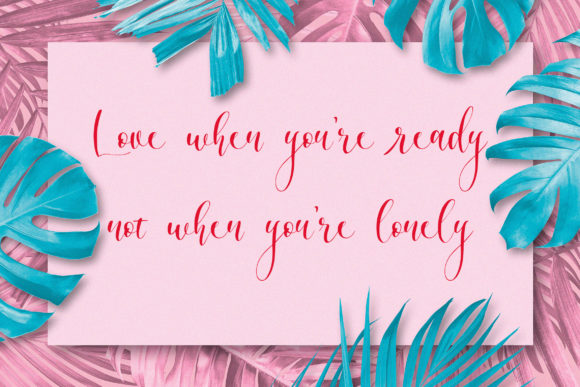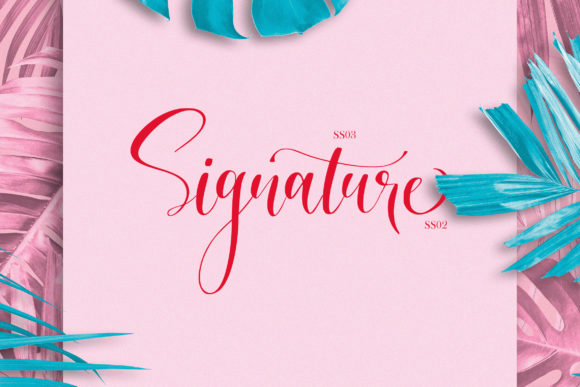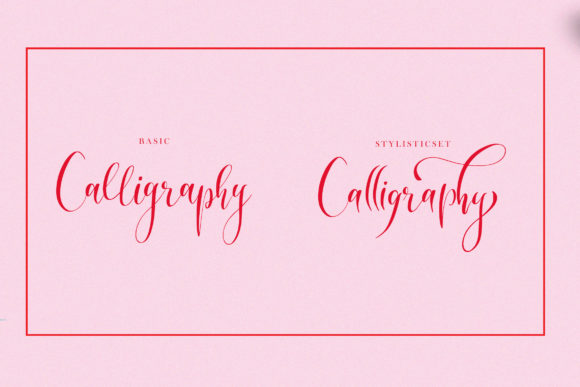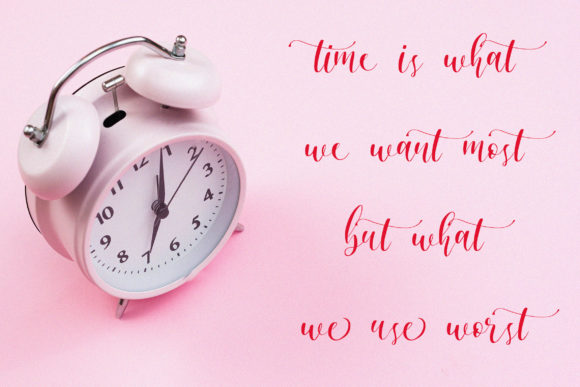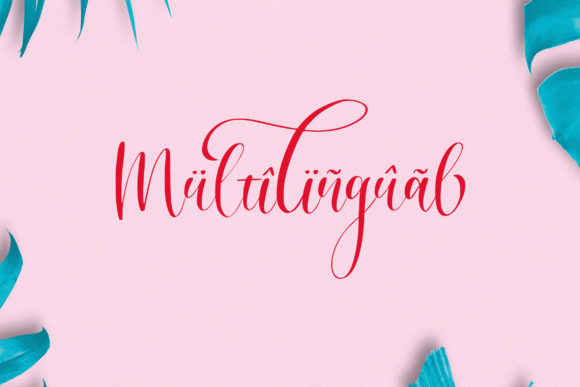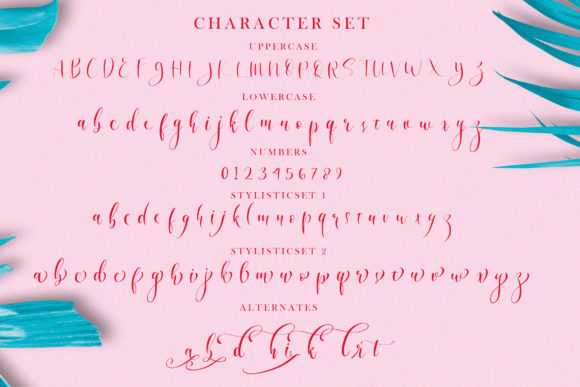
Discover the Charm of Angelina Font: A One-of-a-Kind Script for Crafters
Are you a designer or crafter looking for a unique and eye-catching font to elevate your projects? Look no further than Angelina Font, a particularly sweet script that features incredible swashes, making it a one-of-a-kind crafting font! In this article, we’ll dive into the world of Angelina Font, exploring its features, benefits, and uses, as well as provide tips and inspiration for incorporating it into your creative endeavors.
What is Angelina Font?
Angelina Font is a beautiful script font that boasts an elegant, cursive design with flowing swashes and intricate details. Its unique charm lies in its ability to add a touch of sophistication and whimsy to any project, making it perfect for crafters, designers, and DIY enthusiasts. With its extensive range of swashes, Angelina Font offers endless possibilities for creative expression.
Key Features of Angelina Font
- Incredible Swashes: Angelina Font features an impressive collection of swashes, allowing you to add a personal touch to your projects and make them truly one-of-a-kind.
- Elegant Script Design: The font’s cursive design is both elegant and playful, making it suitable for a wide range of applications, from wedding invitations to craft tutorials.
- Unique Character Set: Angelina Font includes a vast character set, ensuring that you have access to a wide range of letters, numbers, and punctuation marks to bring your creative vision to life.
- Crafting-Friendly: As a crafting font, Angelina Font is optimized for use in various crafting projects, such as scrapbooking, card making, and DIY tutorials.
Benefits of Using Angelina Font
So, why choose Angelina Font for your next project? Here are just a few benefits of using this stunning script font:
- Adds a Personal Touch: With its unique swashes and elegant design, Angelina Font enables you to add a personal touch to your projects, setting them apart from the rest.
- Versatile: The font’s versatility makes it suitable for a wide range of applications, from digital designs to print materials, and even handmade crafts.
- Easy to Use: Angelina Font is designed to be user-friendly, making it easy to incorporate into your workflow, even for those new to working with fonts.
- Inspires Creativity: With its beautiful design and extensive range of swashes, Angelina Font is sure to inspire your creativity and take your projects to the next level.
Using Angelina Font in Your Projects
Now that we’ve explored the features and benefits of Angelina Font, let’s take a look at some ways you can incorporate it into your projects:
- Wedding Invitations: Add a touch of elegance to your wedding invitations with Angelina Font’s beautiful script design and swashes.
- Scrapbooking: Use Angelina Font to create stunning journaling and titles in your scrapbook pages, adding a personal touch to your memories.
- Card Making: Elevate your handmade cards with Angelina Font’s unique swashes and elegant design.
- DIY Tutorials: Incorporate Angelina Font into your DIY tutorials, such as knitting or sewing patterns, to add a touch of whimsy and personality.
Tips and Tricks for Working with Angelina Font
To get the most out of Angelina Font, here are a few tips and tricks to keep in mind:
- Experiment with Swashes: Don’t be afraid to try out different swashes and combinations to find the perfect look for your project.
- Mix and Match: Combine Angelina Font with other fonts and design elements to create a unique and eye-catching look.
- Adjust Font Size: Experiment with different font sizes to find the perfect balance for your project.
- Use in Digital Designs: Angelina Font is perfect for digital designs, such as social media graphics, blog headers, and more.
In conclusion, Angelina Font is a one-of-a-kind script font that offers a unique blend of elegance and whimsy, making it perfect for crafters, designers, and DIY enthusiasts. With its incredible swashes, elegant design, and crafting-friendly features, Angelina Font is sure to inspire your creativity and take your projects to the next level. So why not give it a try and discover the charm of Angelina Font for yourself?